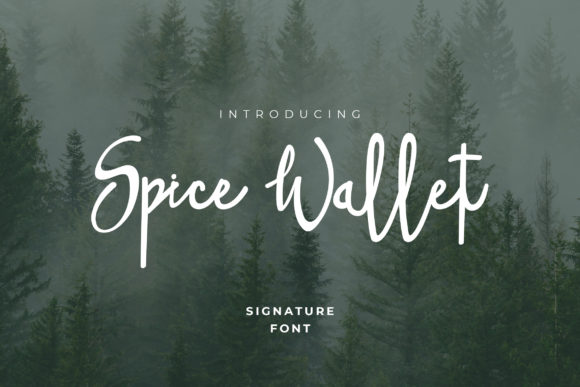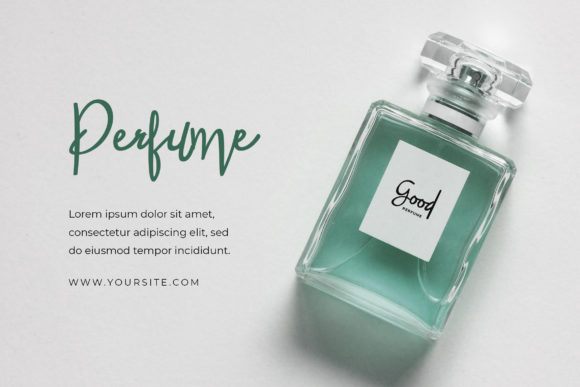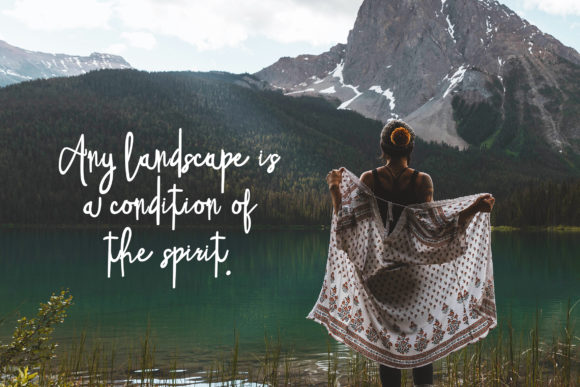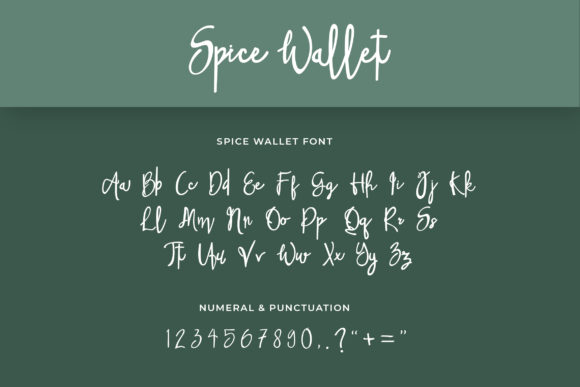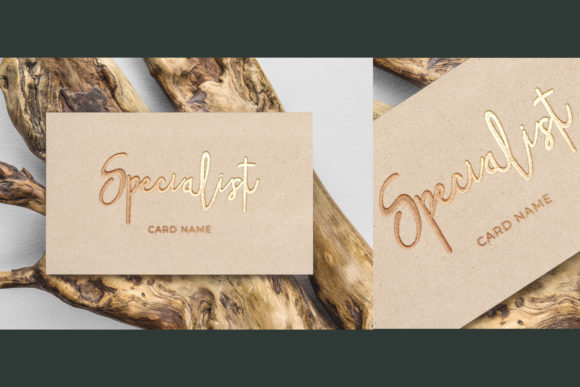
Spice Wallet Font
About Spice Wallet Font
Spice Wallet is a friendly handwritten font that adds a touch of warmth and personality to your designs. With its natural and unique style, this font is well-suited for a wide range of design projects, offering endless possibilities limited only by your imagination.
The handcrafted and organic feel of Spice Wallet brings a sense of authenticity and approachability to your designs. It has a friendly and inviting vibe, making it perfect for projects that aim to create a personal connection with the audience. Whether you’re designing social media graphics, packaging, invitations, or any other creative project, Spice Wallet can elevate your design with its natural charm.
The versatility of Spice Wallet allows it to adapt to various themes and moods. It can add a playful touch to children’s designs, a whimsical feel to wedding invitations, or a cozy atmosphere to lifestyle and food-related projects. Its smooth and flowing letterforms lend themselves well to both bold headlines and smaller text, ensuring legibility and readability in different design contexts.
To enhance the unique characteristics of Spice Wallet, consider experimenting with color, texture, and composition. Play around with different weights, sizes, and styles to create visual hierarchy and emphasis within your designs. You can also incorporate additional graphic elements or illustrations to complement the handwritten feel of the font.
Spice Wallet’s natural and friendly style makes it a versatile choice for a wide range of design applications. Its handwritten charm adds a personal and human touch, helping to create a genuine connection with your audience. Embrace the limitless possibilities and let Spice Wallet bring your creative ideas to life with its unique and inviting appeal.